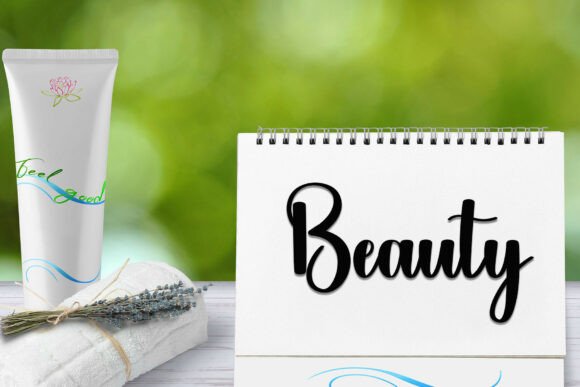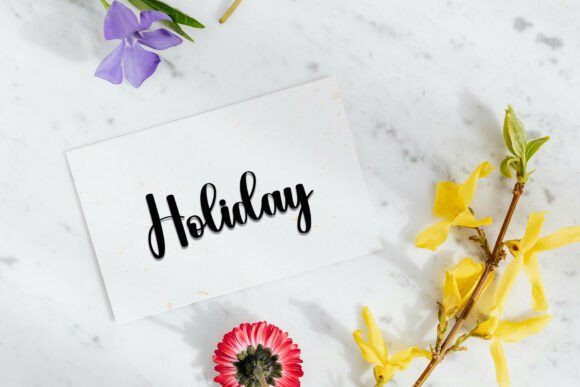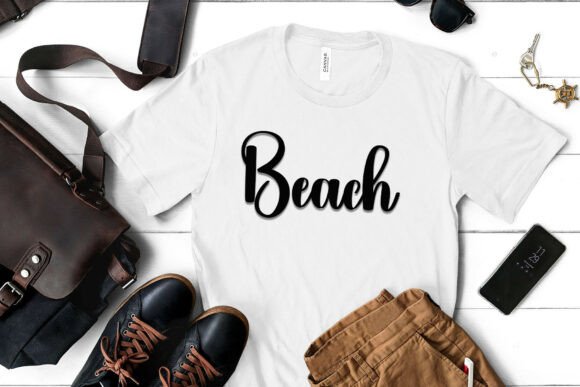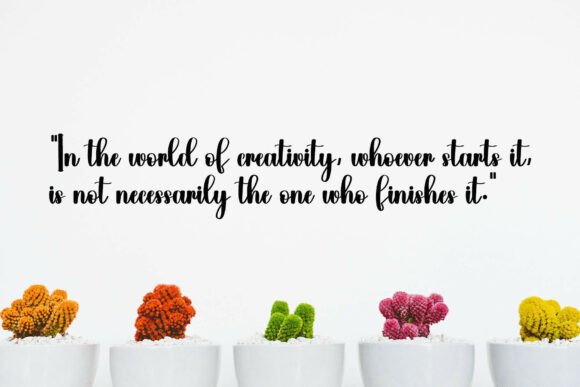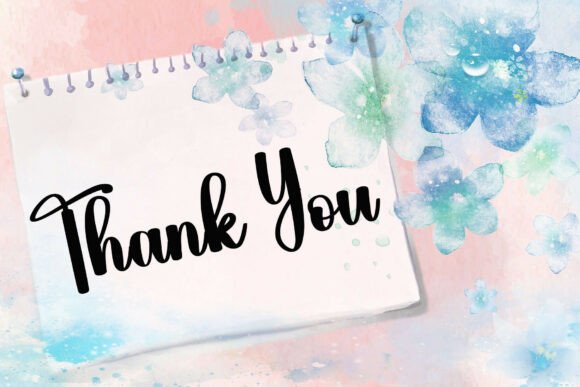
Unleash Your Creativity with the Beauty Snowman Font
Do you remember the moment when you stumbled upon a unique font that changed the entire vibe of your design? It’s that feeling of excitement and possibility that we all crave as creatives. For designers looking to add a touch of elegance and whimsy to their work, the Beauty Snowman Font is a game-changer. This delicate handwritten font is carefully crafted to evoke a sense of coolness and uniqueness, making it perfect for a wide range of projects.
Whether you’re designing letters, invitations, food products, or titles, the Beauty Snowman Font is an excellent choice. Its versatility and charm make it a valuable addition to any designer’s toolkit. With its subtle flair and gentle curves, this font adds a touch of sophistication to any design, setting it apart from the rest. So why settle for ordinary when you can have the extraordinary with the Beauty Snowman Font?
Beauty Snowman Font Key Features
- Unique Characteristics: Distinctive, whimsical design with a winter theme, perfect for festive or holiday-related projects
Beauty Snowman Font Review
Overall, I think the Beauty Snowman Font has some charming qualities, but it falls short in a few areas. Here are my honest thoughts.
- Playful and whimsical feel that’s perfect for winter or holiday-themed designs.
- Unique and creative character set that includes snowmen, snowflakes, and other winter elements.
- Good for headings and titles, especially in digital and print projects where a bold, eye-catching font is needed.
- Some characters may be difficult to read due to their irregular shape and size.
- Not ideal for body text, as it can be tiring to read for long periods.
- Limited language support, which may be a concern for designers working on multilingual projects.
Overall, I’d say the Beauty Snowman Font is a fun and creative addition to any designer’s toolkit, but it’s not without its limitations. If you’re looking for a playful font for headings or titles, it’s definitely worth considering. However, for body text or projects that require a high level of legibility, you may want to look elsewhere.
The Beauty Snowman font is ideal for:
Winter-themed designs and invitations.
Children’s party decorations and invitations.
Magazine and newspaper headlines.